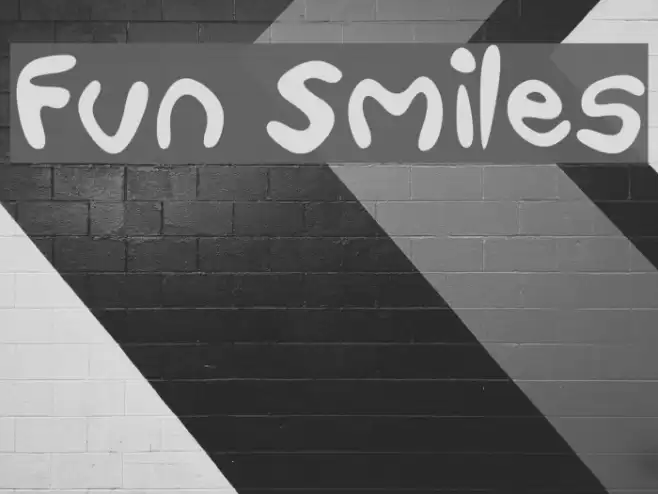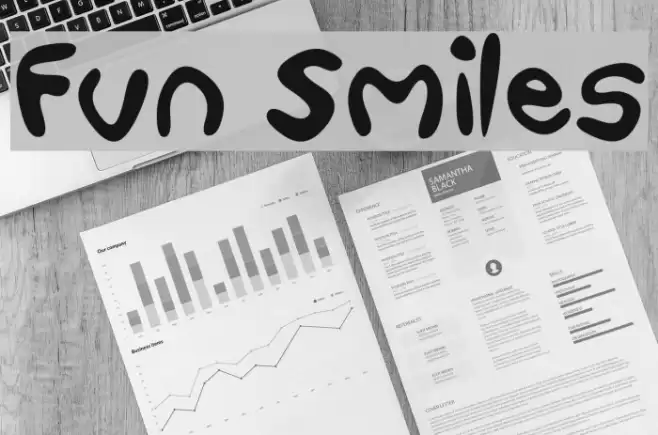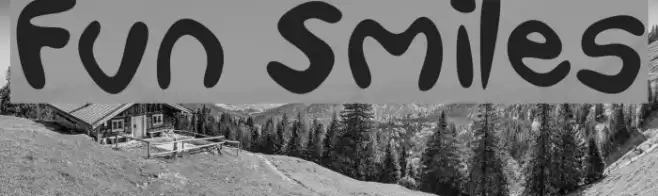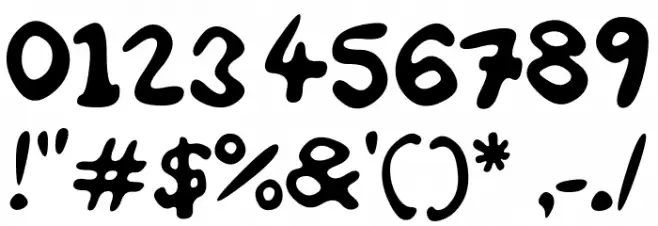
Fun Smiles Font
Fun Smiles Description
This playful and whimsical font features rounded, bubbly characters that exude a sense of fun and joy. The letters are bold and have a hand-drawn appearance, with uneven strokes that add to its casual and friendly vibe. The font includes both uppercase and lowercase letters, numerals, and a variety of special characters, making it versatile for various creative projects. Its thick, consistent strokes ensure readability while maintaining a lively and energetic style. The overall design is reminiscent of childhood doodles, perfect for projects that aim to convey happiness and creativity.
A playful, bubbly font with a hand-drawn, whimsical style from Cartoon fonts.
- Proposed Projects: Ideal for children's books, playful branding, party invitations, and creative posters.
- Overall Style: Playful, Whimsical